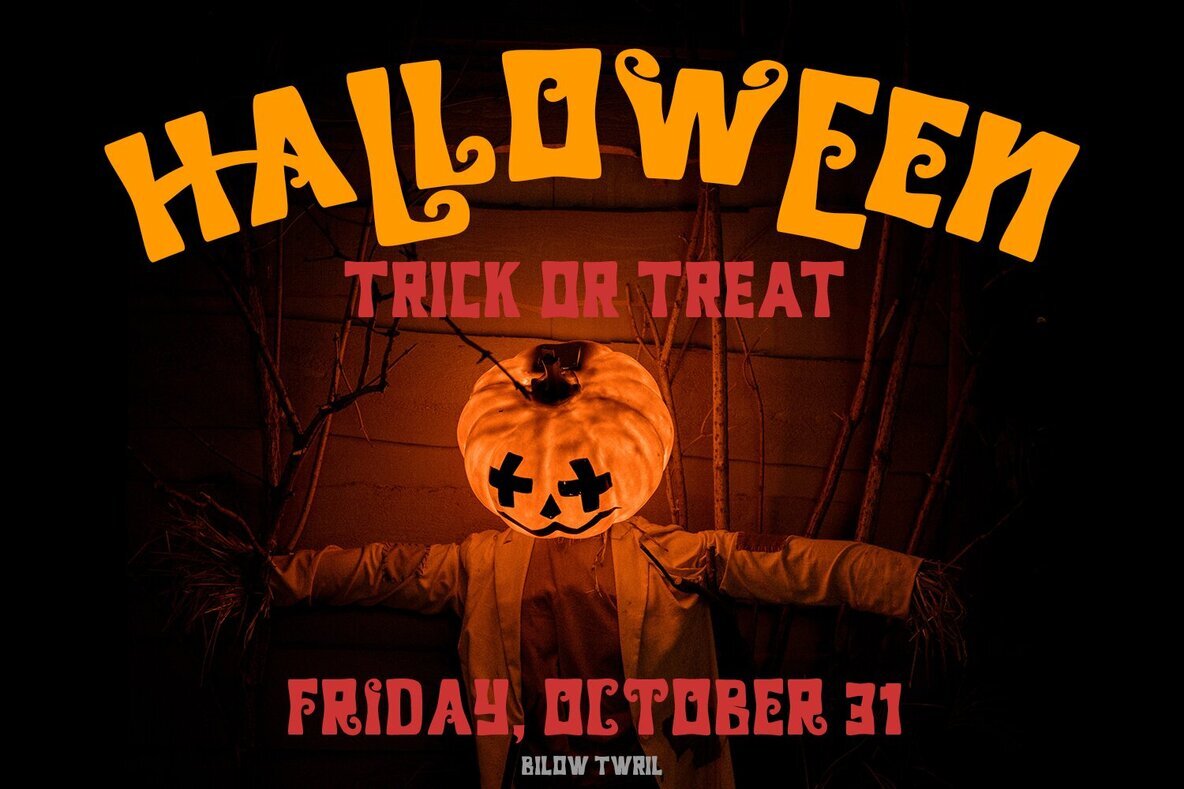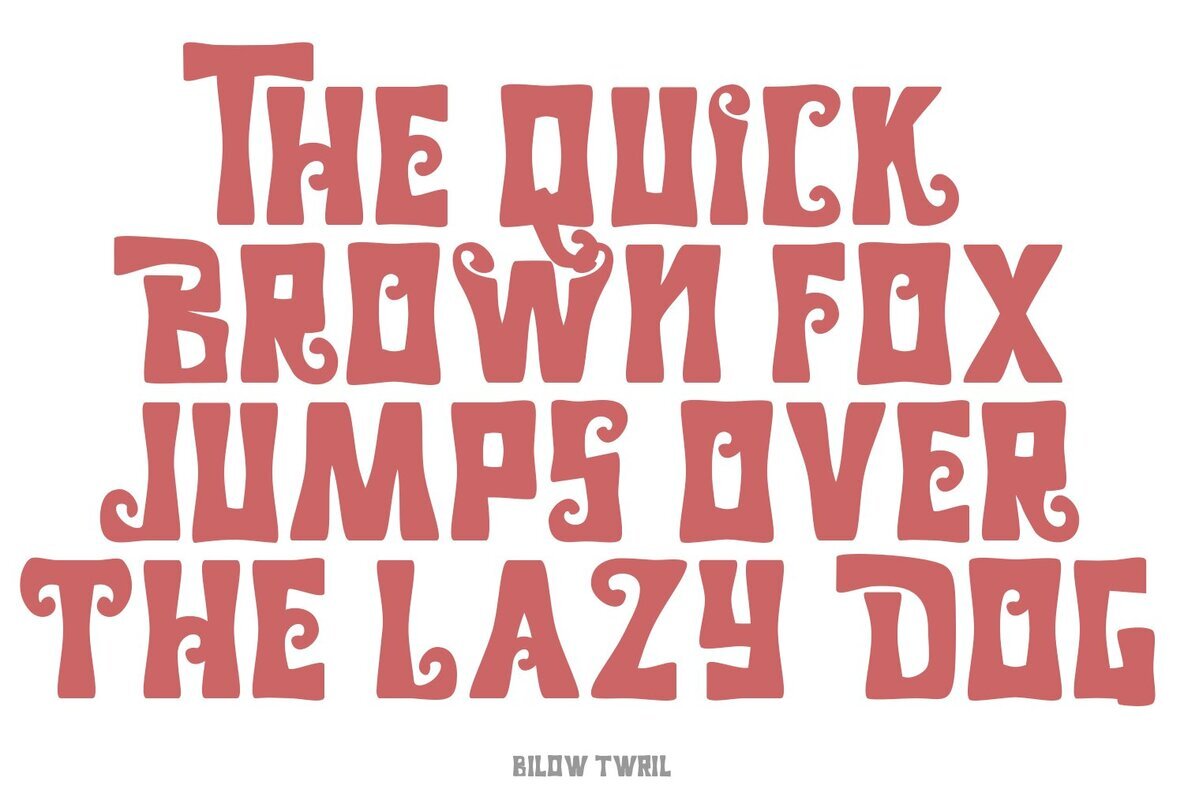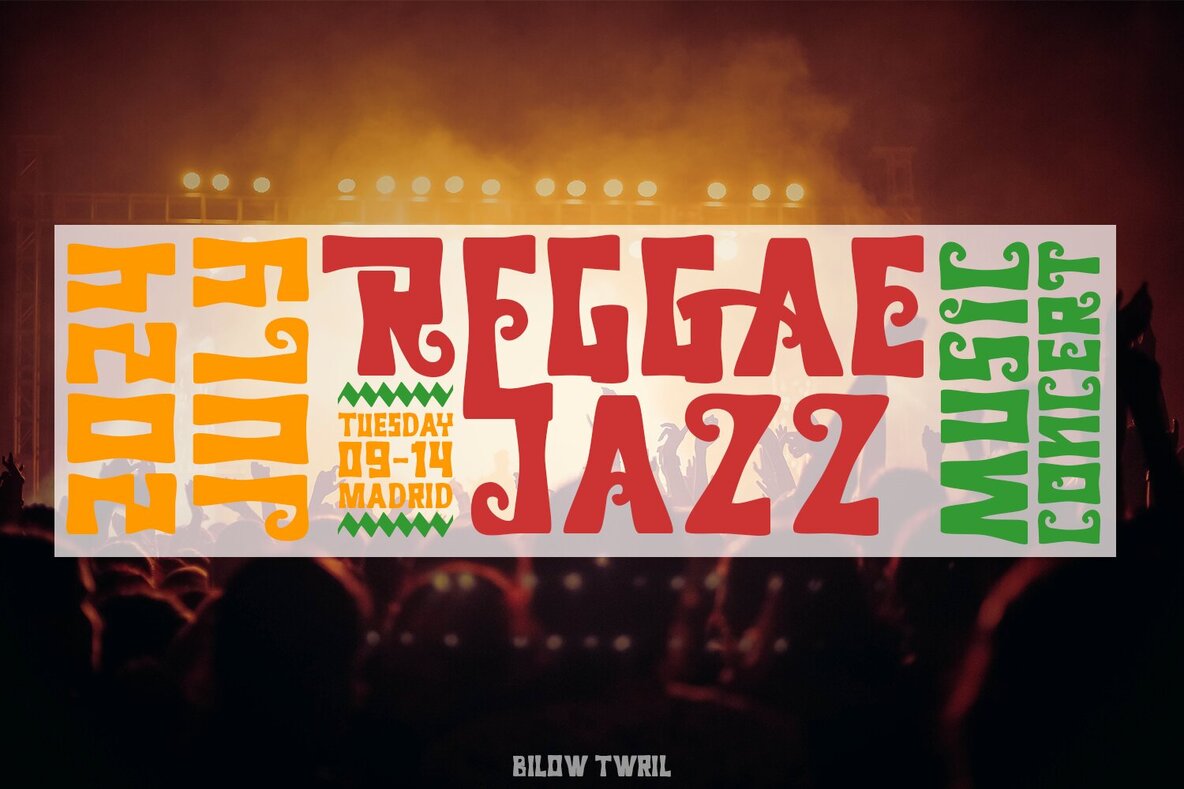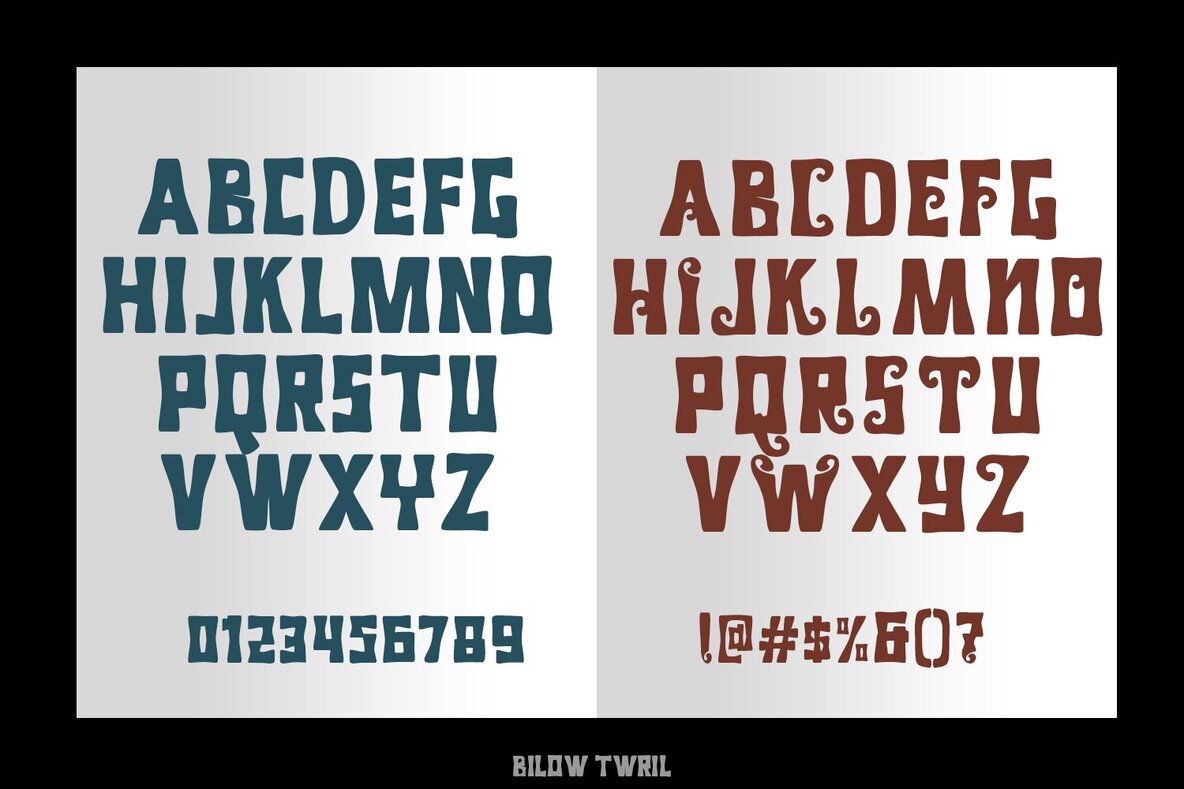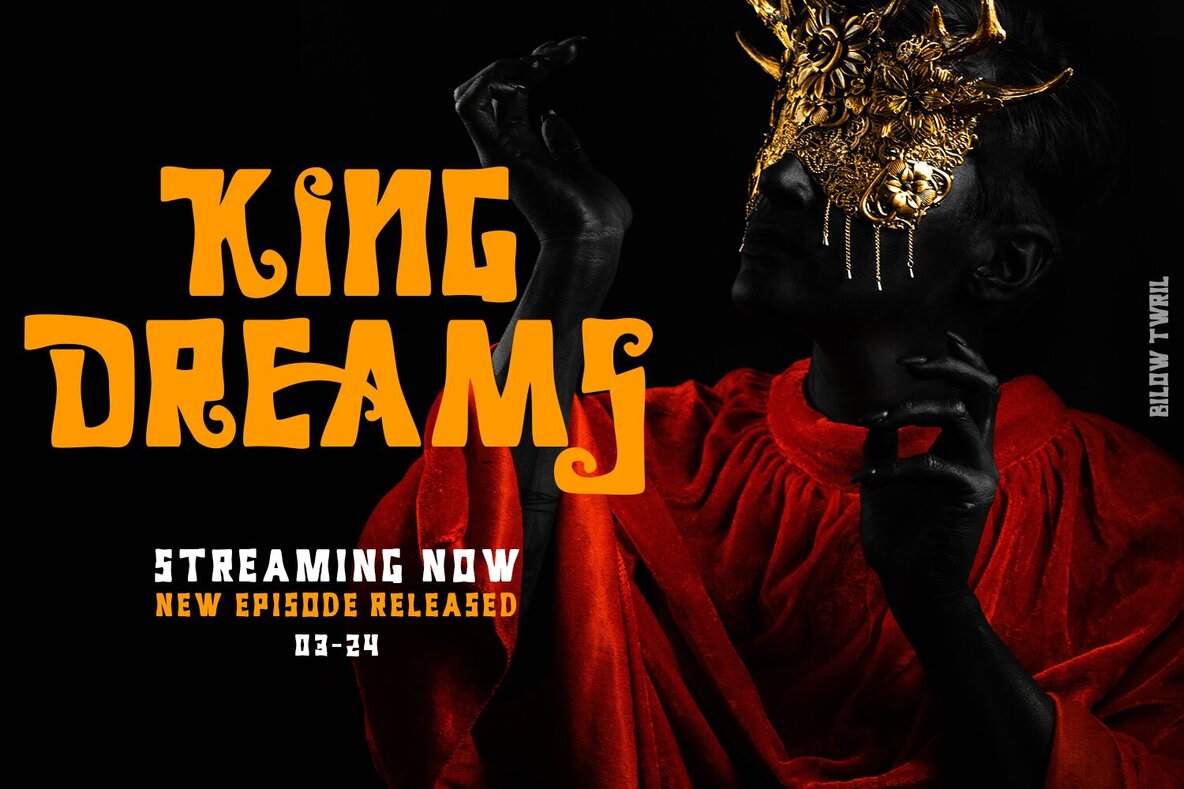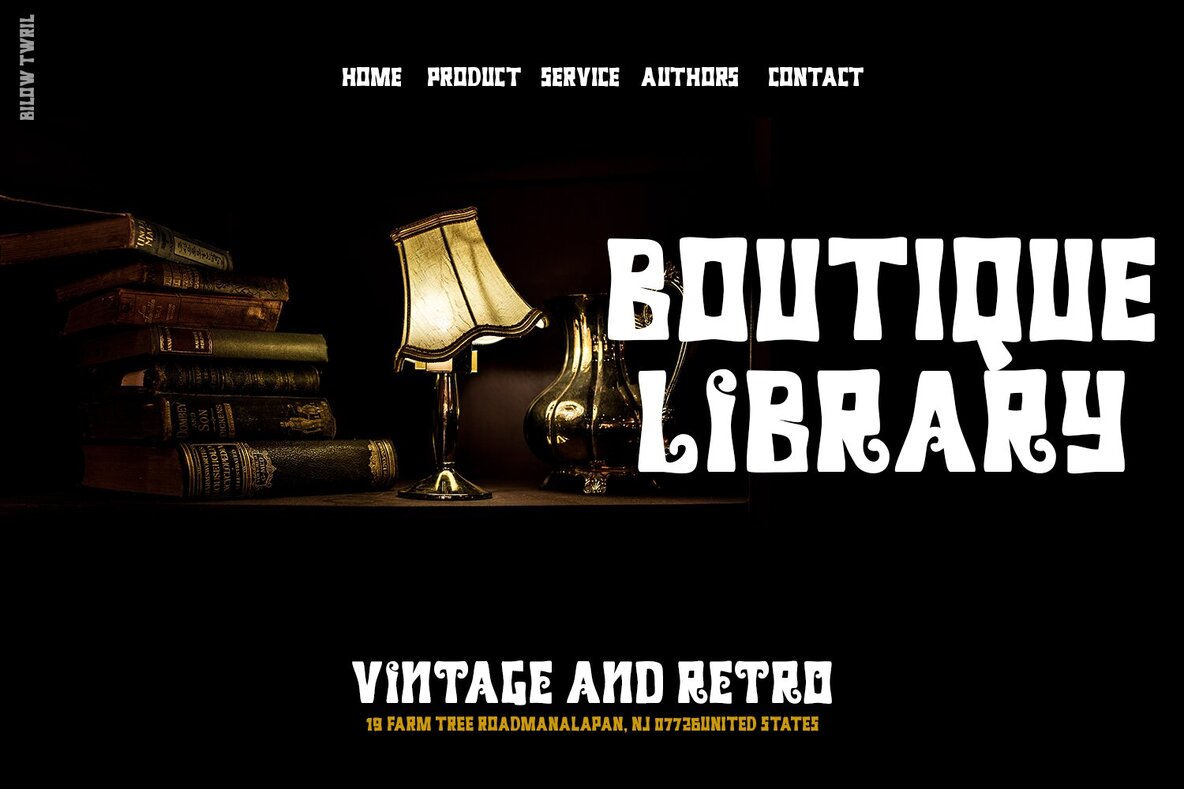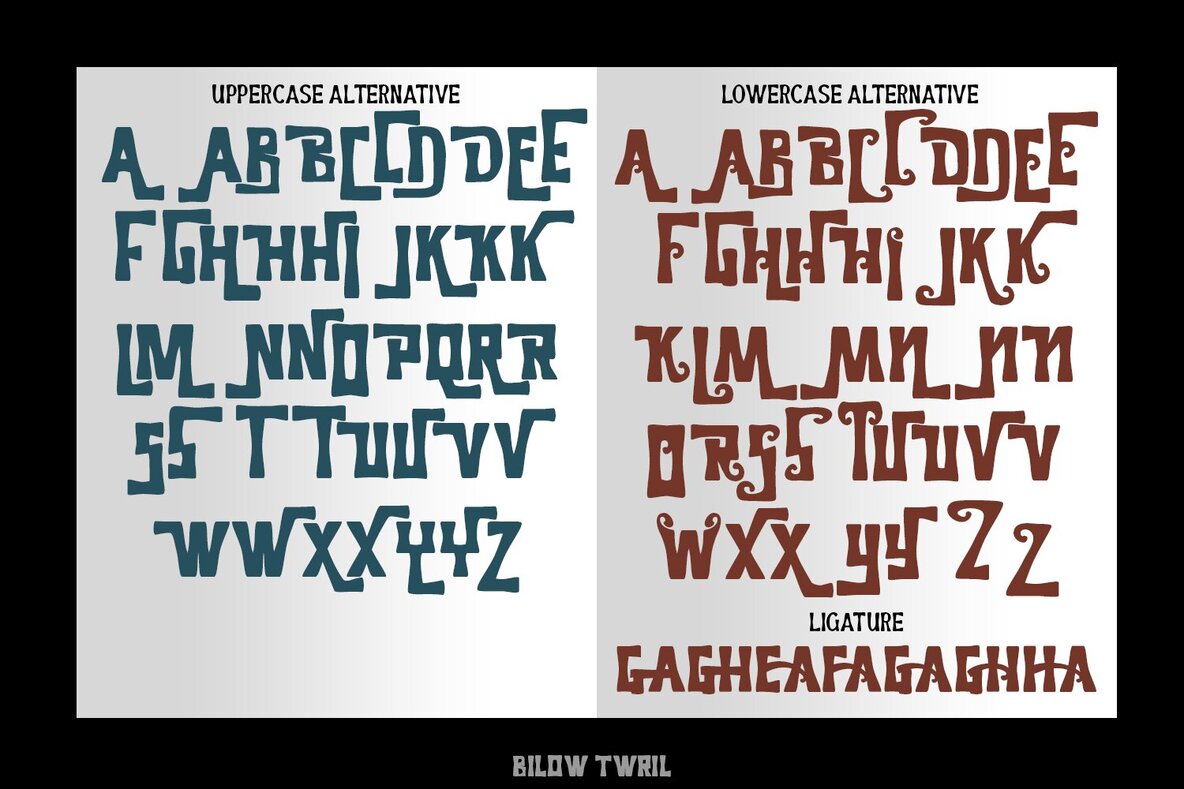
Billow twril Font
Billow Twril Regular
Billow Twirl is a captivating retro display font featuring uppercase letters with a distinctive curly style. This font offers numerous alternates and ligatures, making it perfect for a wide range of creative projects.Billow Twirl: Retro Display Font with Curvature and Style